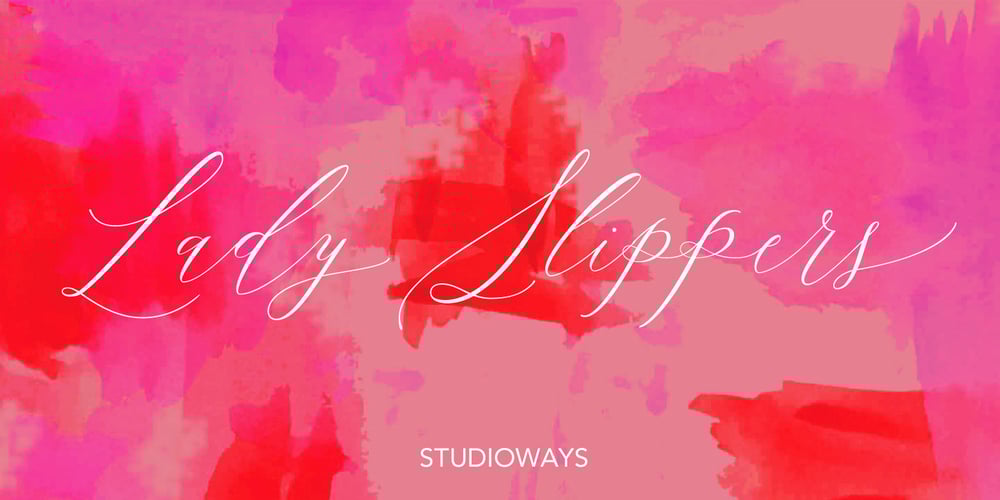
Lady Slippers Font Family was designed by Eliza Gwendalyn and published by Studioways. Lady Slippers contains 5 styles and family package options. This is Lady Slippers, a delicate and beautiful typeface resembling one of Eliza Gwendalyn’s popular modern calligraphic styles! She is the full blown version with many OpenType bells and whistles such as, swashes, ligatures, discretionary ligatures and stylistic alternates. Enabling them makes it possible to create beautiful and seemingly hand-written calligraphy designs. Then there’s Lady Slippers Basic, Lady Slippers Loops, and Lady Slippers Align. These fonts are toned down versions of Lady Slippers. Still beautiful and delicate handwritten script typefaces, they are meant for users who don’t require all of OpenType goodies. Each of these fonts support some basic OT features, like fractions, superiors, and ordinals. In an interesting twist, we have redrawn the lowercase in Lady Slippers Align to align on the baseline, giving Lady Slippers a more traditional calligraphic appeal. Finally, Lady Slippers Ornament is offered as a companion for any font in the Lady Slippers family. It contains decorative ornaments, crests and other hand drawn elements, as well as a set of figures, minimal punctuation, and some catchwords useful for invitations and bridal pieces. The package includes a key map so finding the ornaments is made easy. All the glyphs are accessible from any standard keyboard. You can purchase the fonts separately, or one of the discounted bundles we’ve put together, Lady Slippers 4 Pack (includes Basic, Loops, Align and Ornaments) or the Lady Slippers & Ornaments pack.